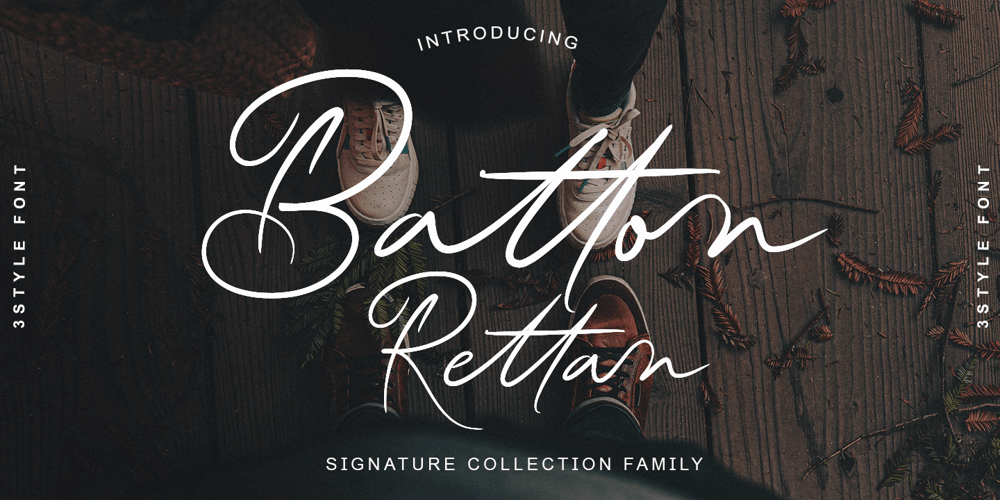
Batton Rettan
Batton Rettan font
Batton Rettan Font Family was designed by Ikhsan Maulana and published by IM Studio. Batton Rettan contains 3 styles and family package options. Batton Rettan stylized signature font is a font with ligature, stroke and finish stroke. It features signature characters that will take your project to the next level!This font is PUA coded which means you can easily access all the glyphs and swashes full of signatures! It also features many special features including glyphs and alternate ligatures. font designs made for various vector designs, printing such as digital wedding blogs, online shops, social media, while printing can be used in the field of clothing products, accessories, bags, pins, logos, business cards, watermarks and many others…so it can make your product look cute and attractive, and also Multilingual support!!!Happy designing…